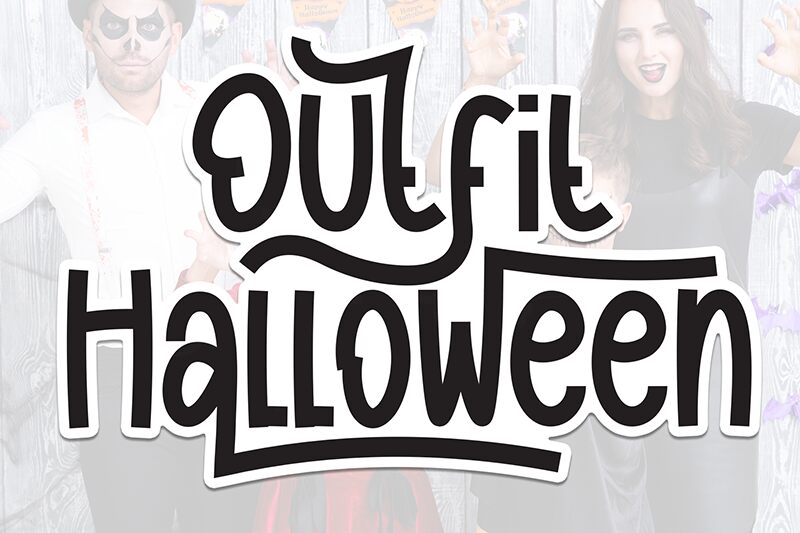
Outfit Halloween font by Andi Moz is a free font that exudes spooky vibes with a touch of whimsy. Designed with playful, bold outlines and decorative elements, it captures the informal and festive essence of Halloween. This fancy typeface masterfully blends modern sensibilities with a flair for the fantastical, making it the perfect choice for any project needing a casual yet energetic feel.
Choose Outfit Halloween to spice up costume parties, event invitations, festival posters, social media graphics, and children’s book covers. Its casual vibe makes it a great fit for merchandise designs, greeting cards, and more unique branding opportunities in tune with the Halloween spirit.